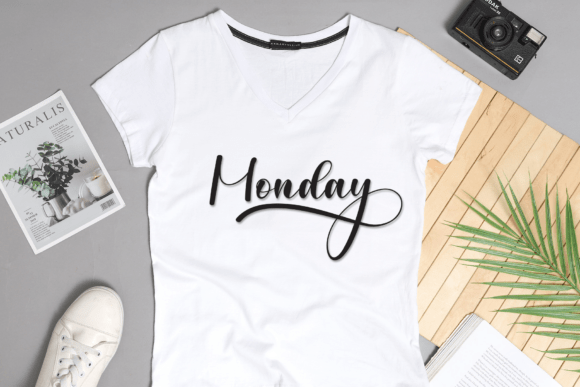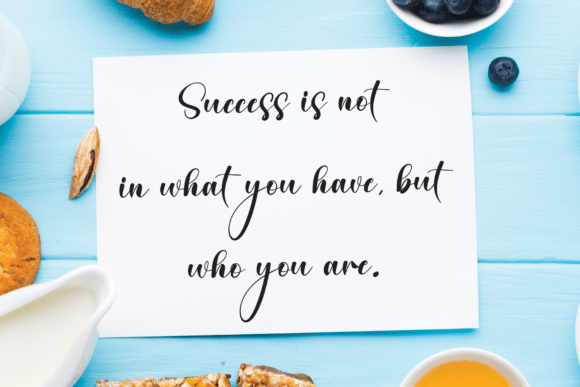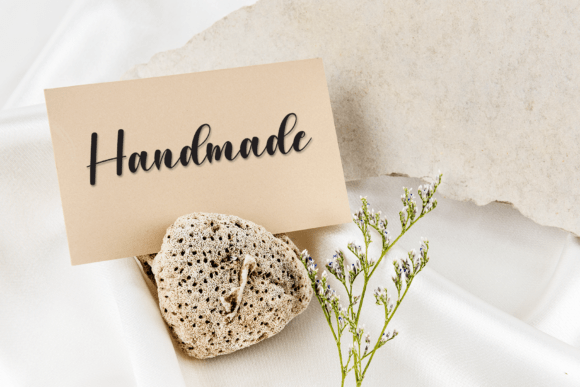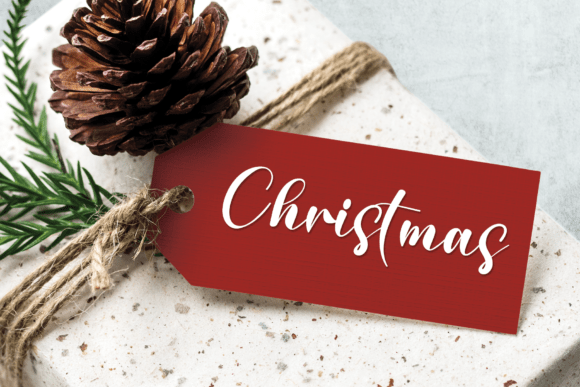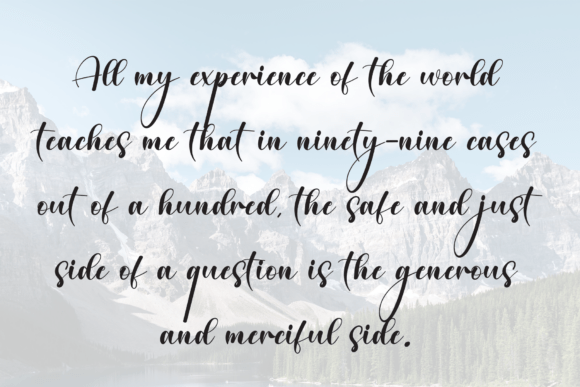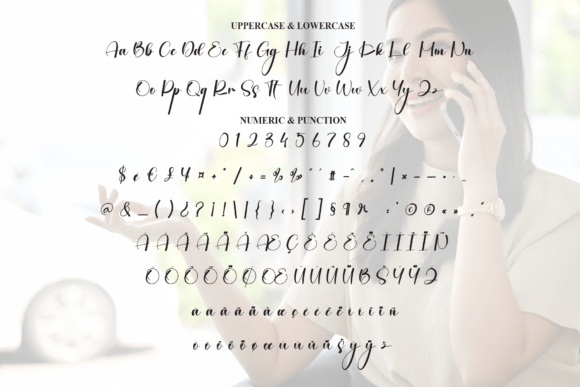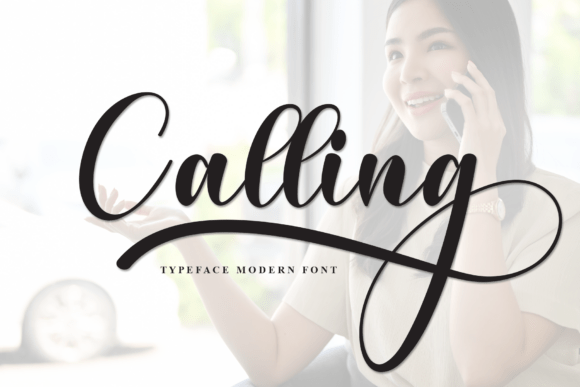
Introducing Calling Font: Elevate Your Designs with Elegance and Sophistication
Are you a designer or crafter looking for a font that exudes elegance and sophistication? Look no further than Calling Font, a stylish and incredibly elegant script font that is perfect for a variety of design projects. From wedding invitations and thank you cards to quotes, greeting cards, logos, and business cards, Calling Font is the perfect addition to any design that needs a handwritten touch.
What Makes Calling Font So Special?
Calling Font is a beautifully crafted script font that features flowing lines, intricate details, and a touch of sophistication. Its elegant design makes it perfect for designs that require a high level of refinement, such as wedding invitations, luxury branding, and high-end product packaging. The font’s unique and stylish appearance is sure to make your designs stand out from the crowd and leave a lasting impression on your audience.
Calling Font is an incredibly versatile font that can be used for a wide range of design projects. Here are just a few examples of how you can use this beautiful font:
- Wedding Invitations: Add a touch of elegance and sophistication to your wedding invitations with Calling Font. Its beautiful script design is perfect for formal wedding invitations, save-the-date cards, and thank you notes.
- Thank You Cards: Show your appreciation with stylish thank you cards featuring Calling Font. Its elegant design is perfect for expressing gratitude to clients, customers, or loved ones.
- Quotes and Greeting Cards: Add a touch of sophistication to your quotes and greeting cards with Calling Font. Its beautiful script design is perfect for creating inspiring and heartfelt messages.
- Logos and Business Cards: Elevate your brand with a stylish logo and business card design featuring Calling Font. Its elegant design is perfect for luxury brands, creative agencies, and small businesses.
Why Choose Calling Font?
There are many script fonts available, but Calling Font stands out from the rest due to its unique and elegant design. Here are just a few reasons why you should choose Calling Font for your next design project:
- Unique and Stylish Design: Calling Font features a beautiful and unique script design that is sure to make your designs stand out from the crowd.
- Elegant and Sophisticated: The font’s elegant design makes it perfect for designs that require a high level of refinement and sophistication.
- Versatile: Calling Font can be used for a wide range of design projects, from wedding invitations and thank you cards to logos and business cards.
- Easy to Read: Despite its elegant design, Calling Font is easy to read and understand, making it perfect for body text and captions.
Tips for Using Calling Font Effectively
To get the most out of Calling Font, here are a few tips to keep in mind:
- Use it Sparingly: While Calling Font is beautiful, it’s best to use it sparingly to avoid overwhelming your design. Use it for headings, titles, or quotes to add a touch of elegance and sophistication.
- Pair it with a Simple Font: To create visual interest, pair Calling Font with a simple font for body text. This will create a beautiful contrast between the elegant script font and the clean, simple font.
- Experiment with Colors: Calling Font looks beautiful in a variety of colors, from classic black and white to bold and bright hues. Experiment with different colors to find the perfect look for your design.
In conclusion, Calling Font is a beautiful and elegant script font that is perfect for designers and crafters looking to add a touch of sophistication to their designs. Its unique and stylish design makes it perfect for a wide range of design projects, from wedding invitations and thank you cards to logos and business cards. With its versatility, elegance, and ease of use, Calling Font is a must-have font for any designer or crafter looking to elevate their designs.